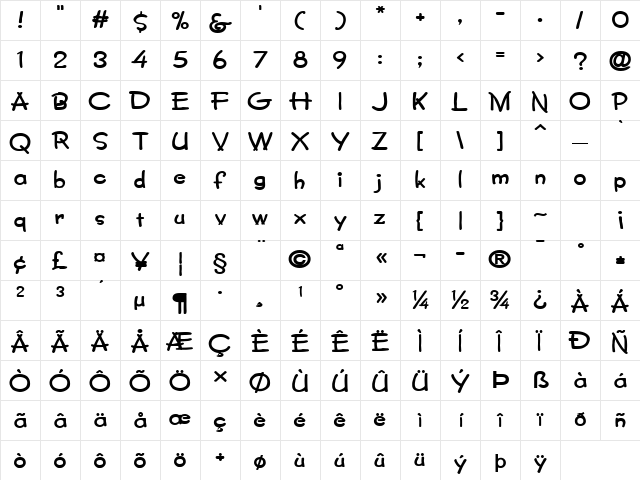
CrayonExtended Bold Free Font
CrayonExtended Bold
CrayonExtended Family
Design Context for CrayonExtended
CrayonExtended is a composed and adaptable typeface that performs quietly and consistently across a wide range of design contexts. Its bold stroke weight gives it real presence on the page.